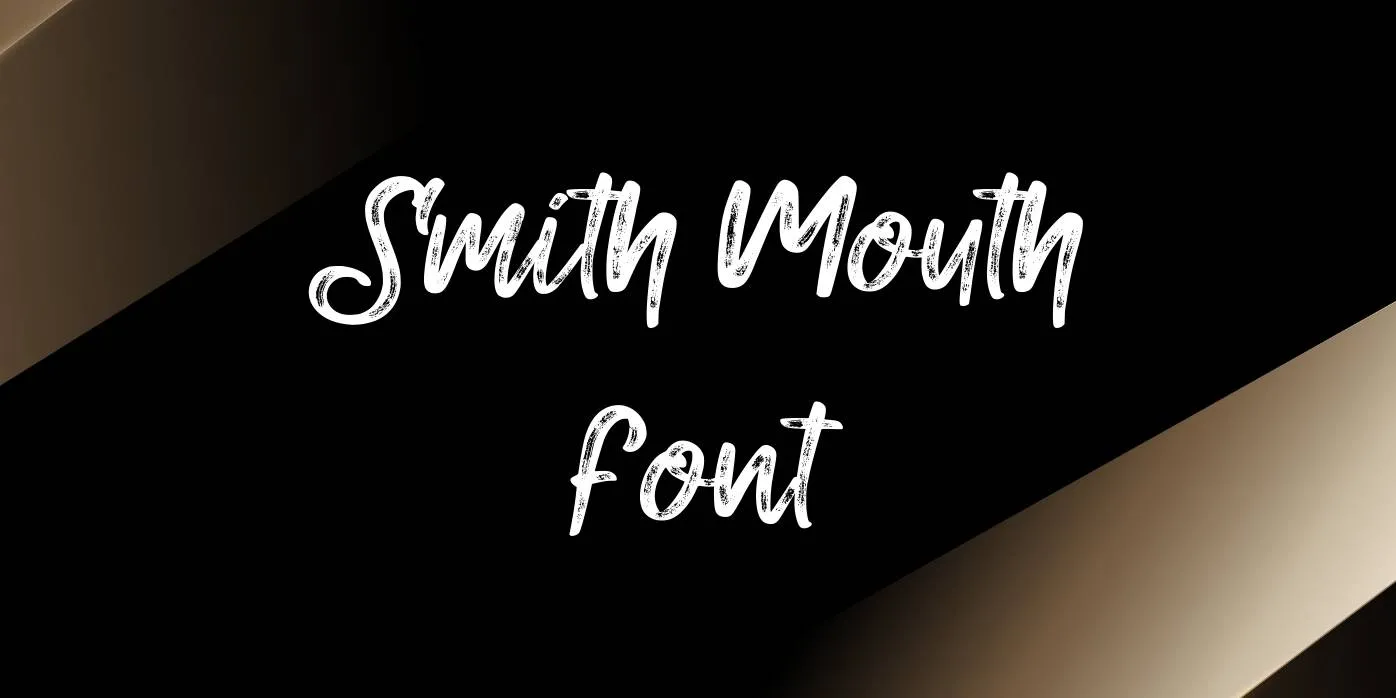
Smith Mouth Font
Smith Mouth Font is a brush typeface that was created in the 18th century. It is named after its designer, John Smith. The font was used for printing books and other publications. The Font has a unique style that is different from other fonts of its time.
The font is still used today by some designers. This font glyph has a very distinct shape. The body of the glyph is oval-shaped. The top of the glyph is flat, while the bottom is curved.
The sides of the glyph are also curved which gives a very organic and flowing look. The typeface has a matching personality with other typefaces and can provide cool performance with the pairing of vogue font. When using this font, it is important to keep in mind its history. This font was created during a time when books were the primary source of information.
The font was designed to be easy to read and understand.